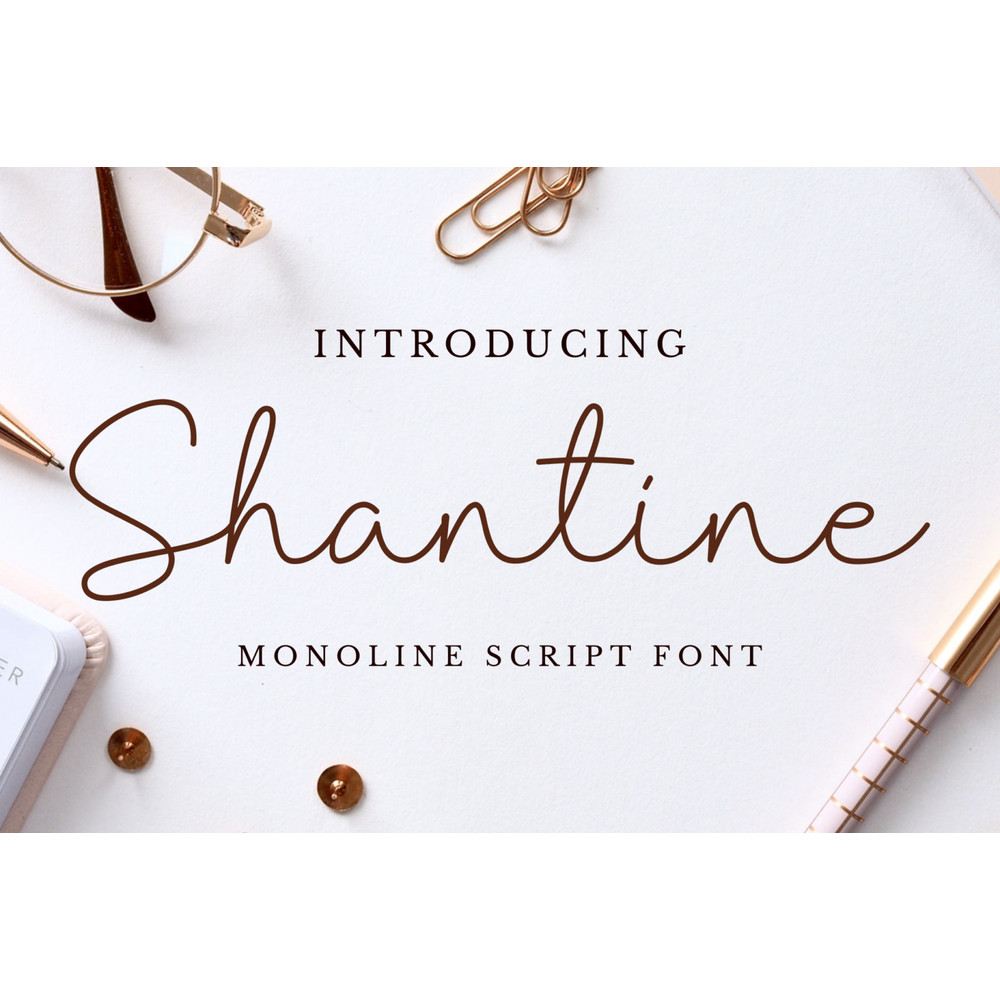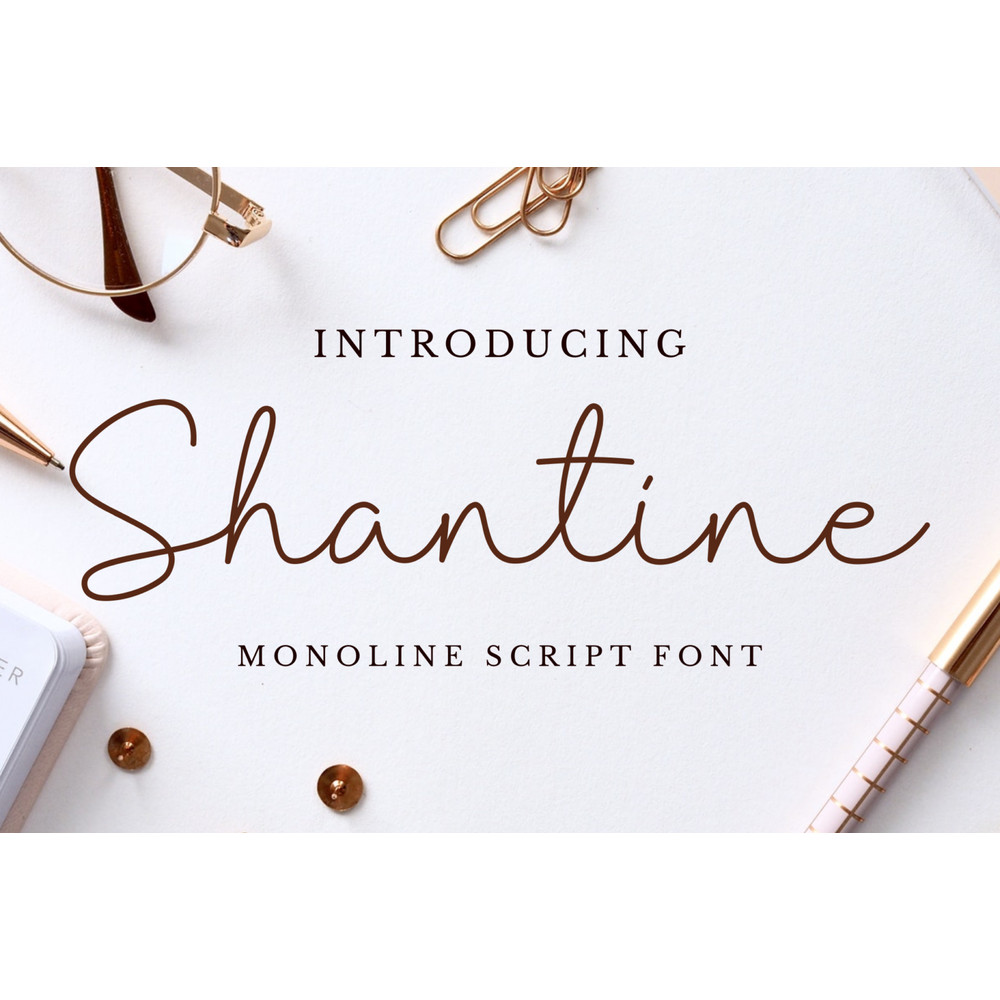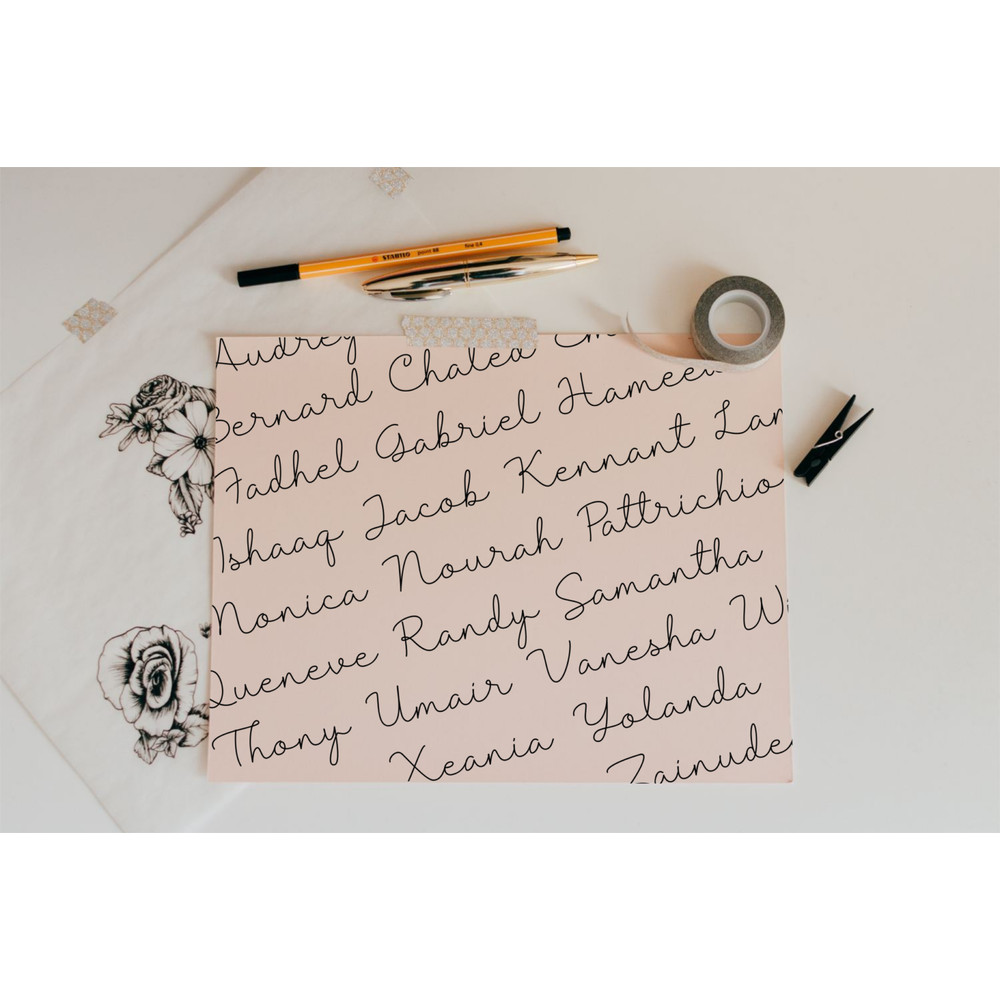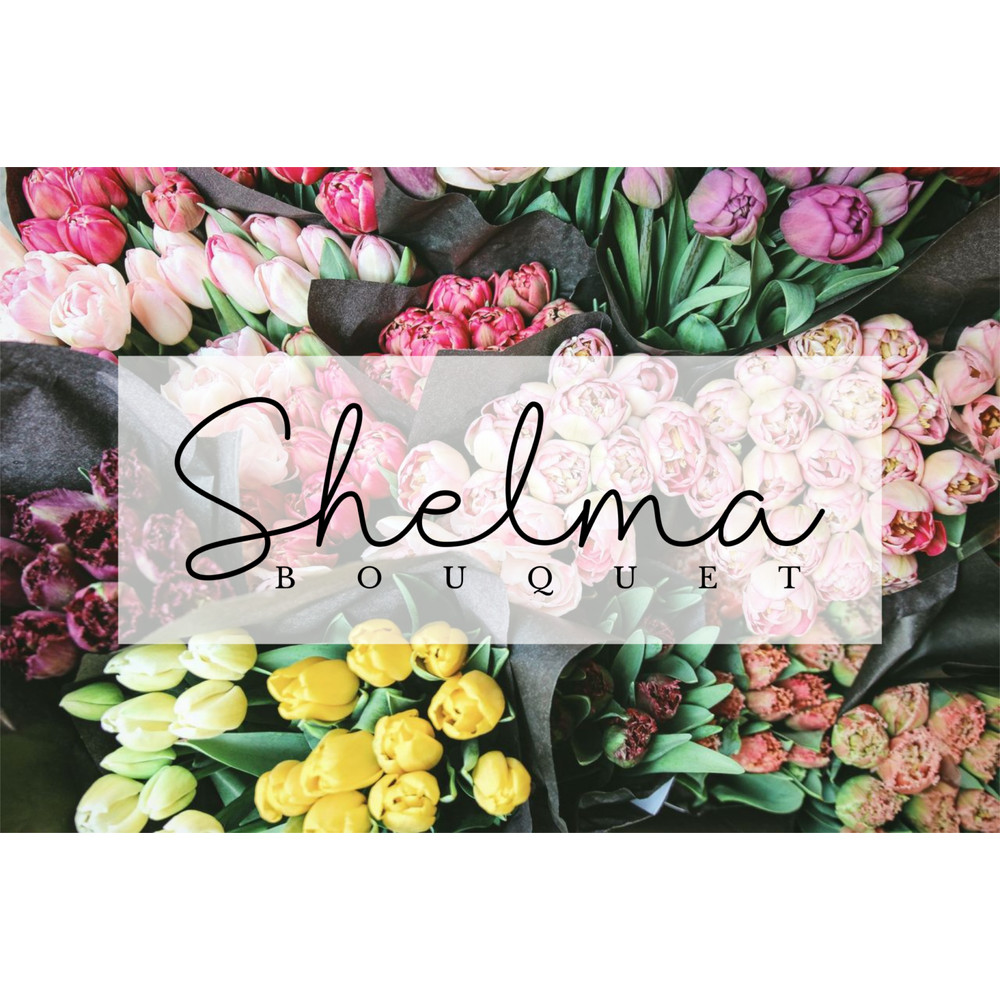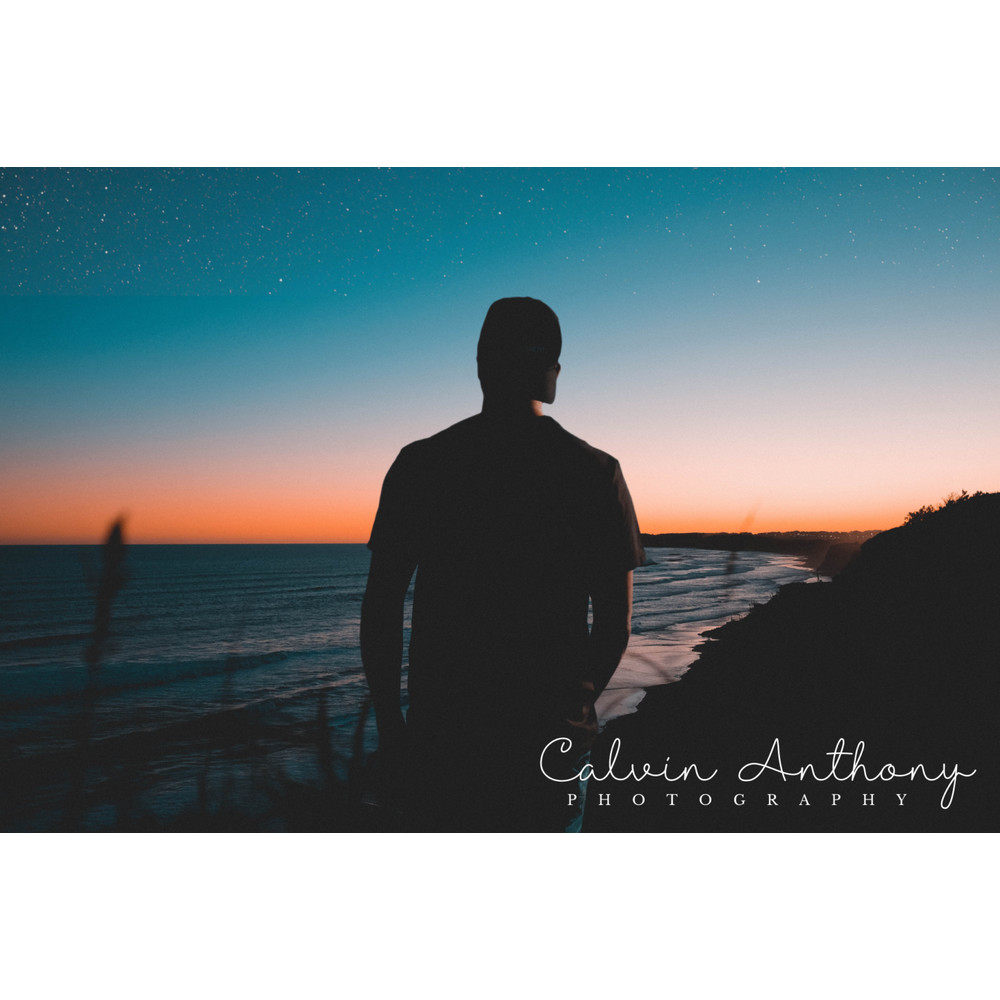
Shantine is a monoline script font with an elegant style. It has good readability and is perfect for logos, invitations, wedding, signatures, and much more!
Ligatures
Multilingual support